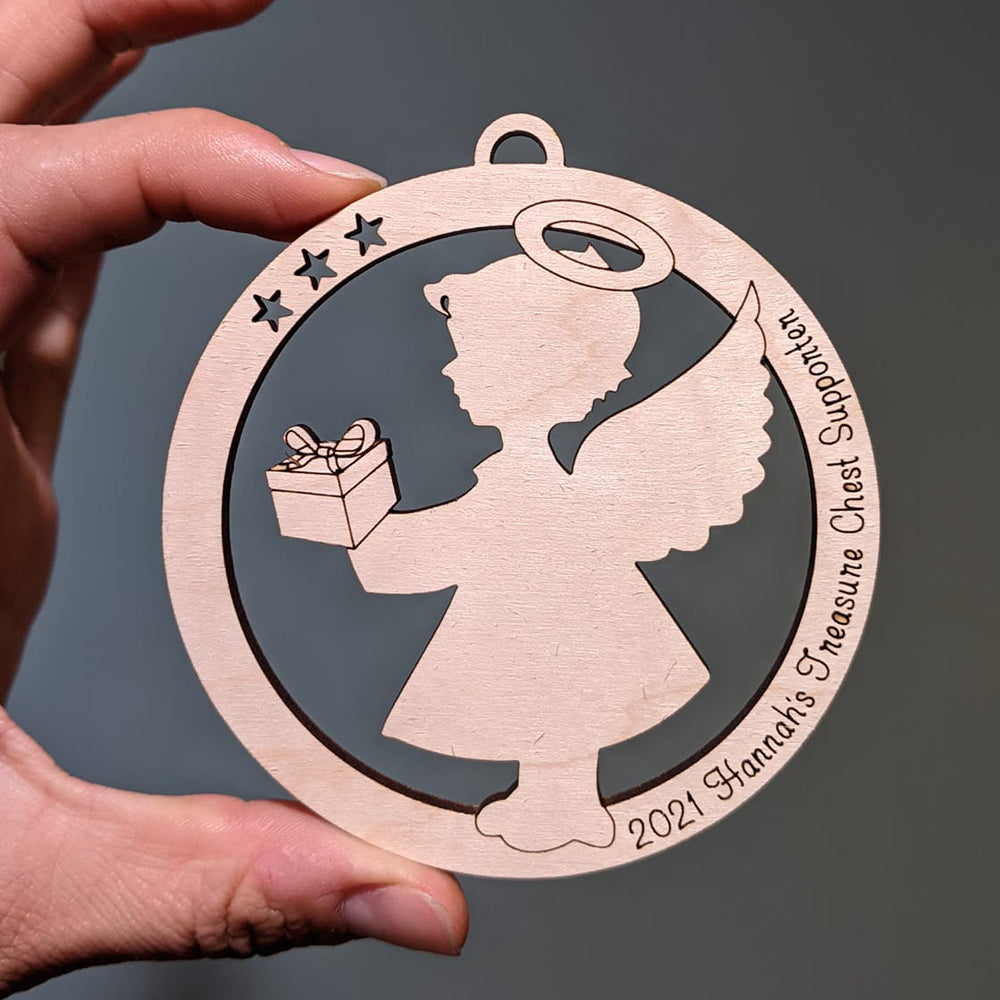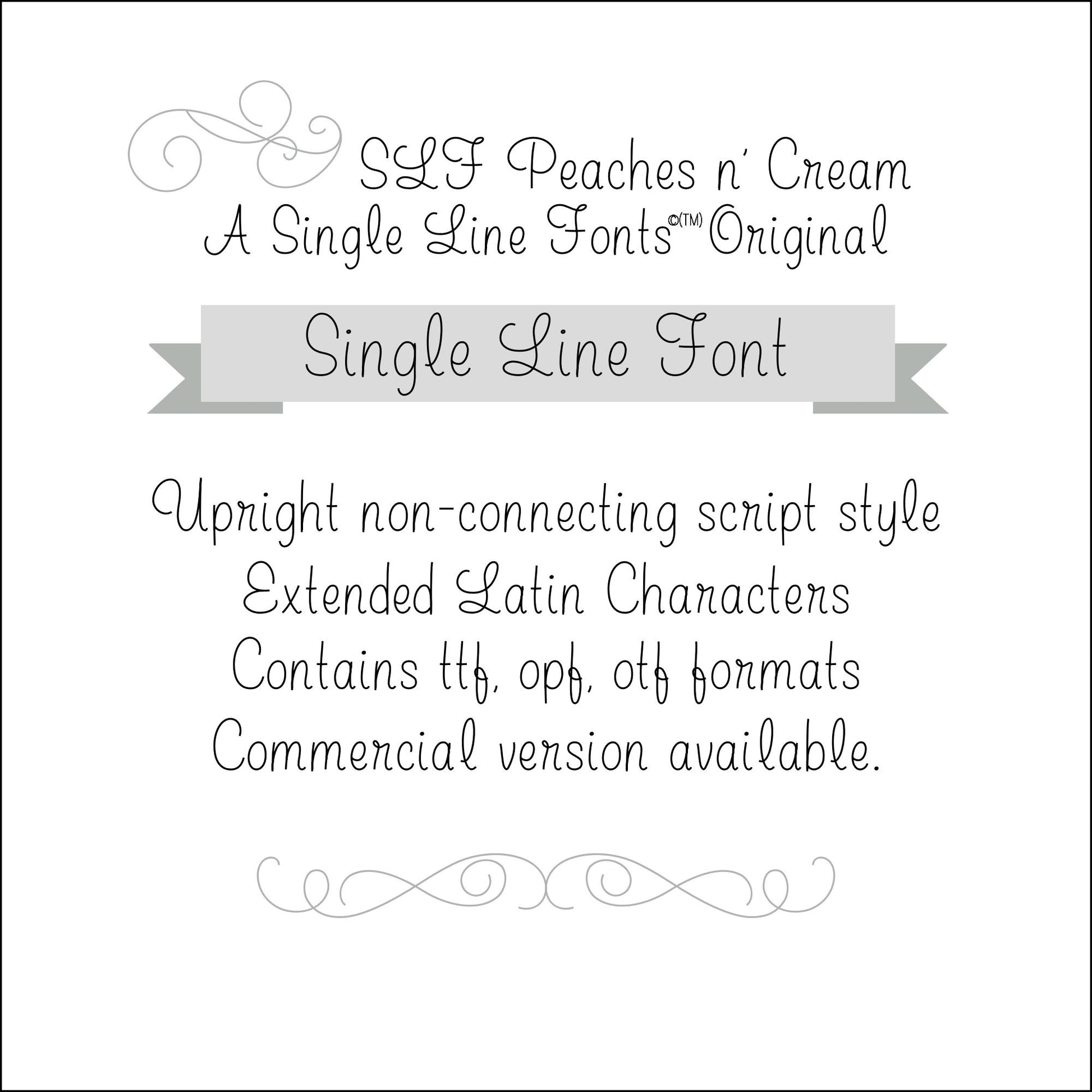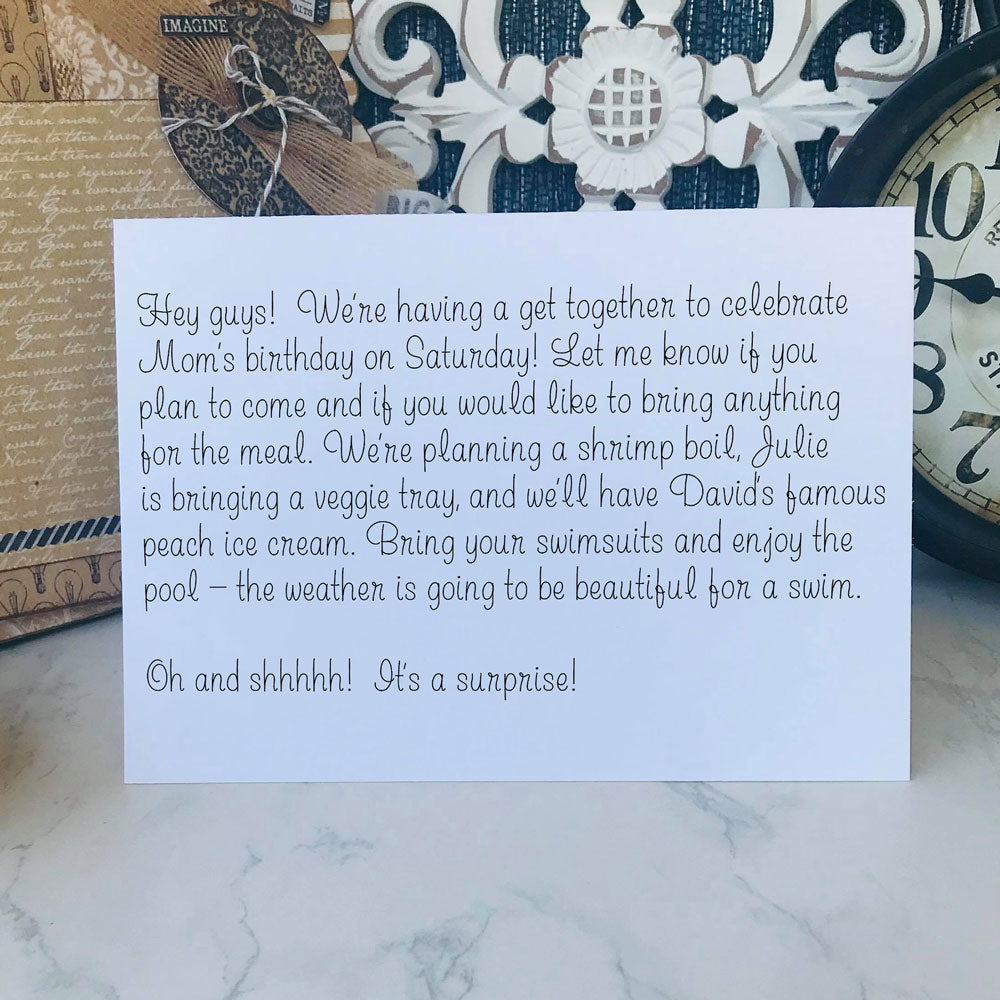
SLF Peaches-n-Cream – Soft Single Line Print Font for Engraving & Crafts
SLF Peaches-n-Cream is a soft, charming single line print font with smooth curves and a warm, welcoming feel. Its gentle letterforms make it perfect for engraving, scoring, CNC routing, sketch projects, and creative crafts. Use it for labels, cards, personalized gifts, home décor, and projects that need a sweet, friendly touch.
This monoline font includes a full character set with uppercase and lowercase letters, numbers, punctuation, symbols, and accented characters for multilingual support.
• Labels, cards, home décor, and personalized engraved gifts